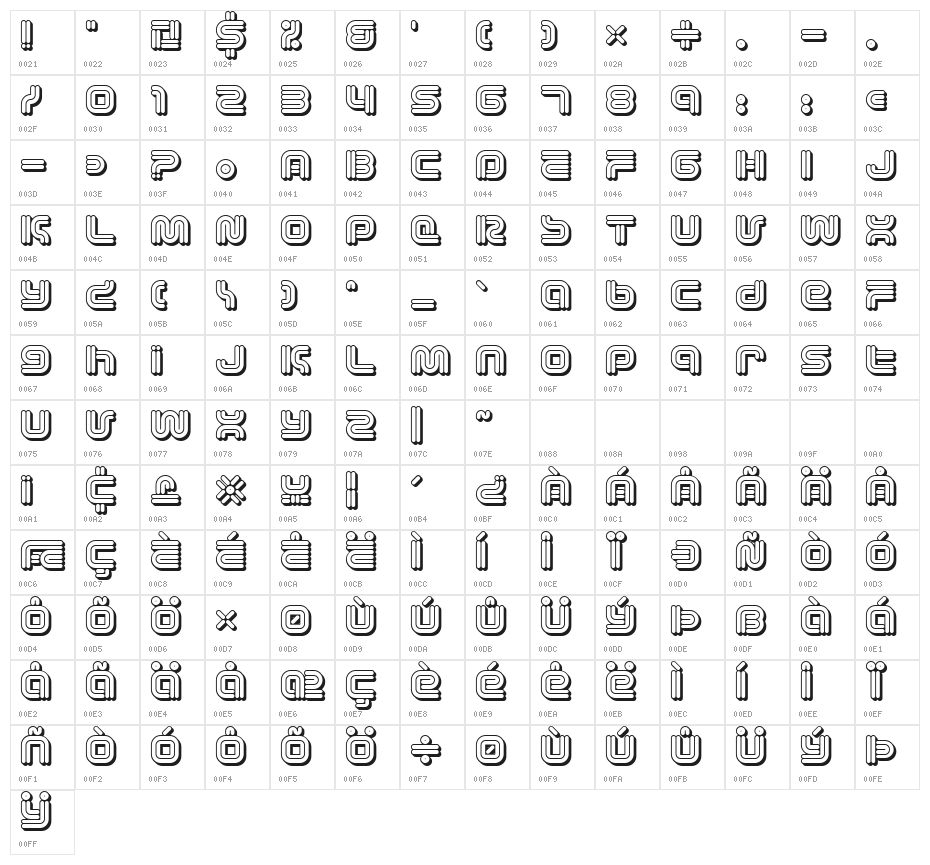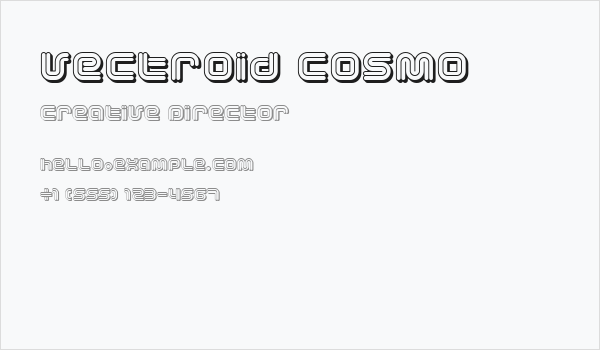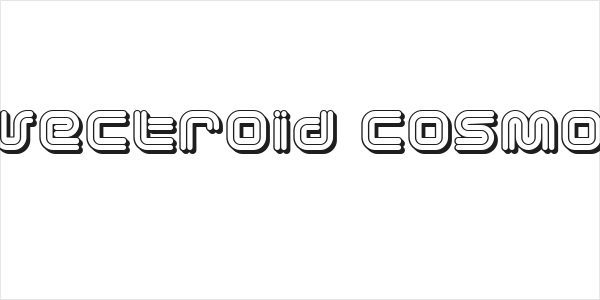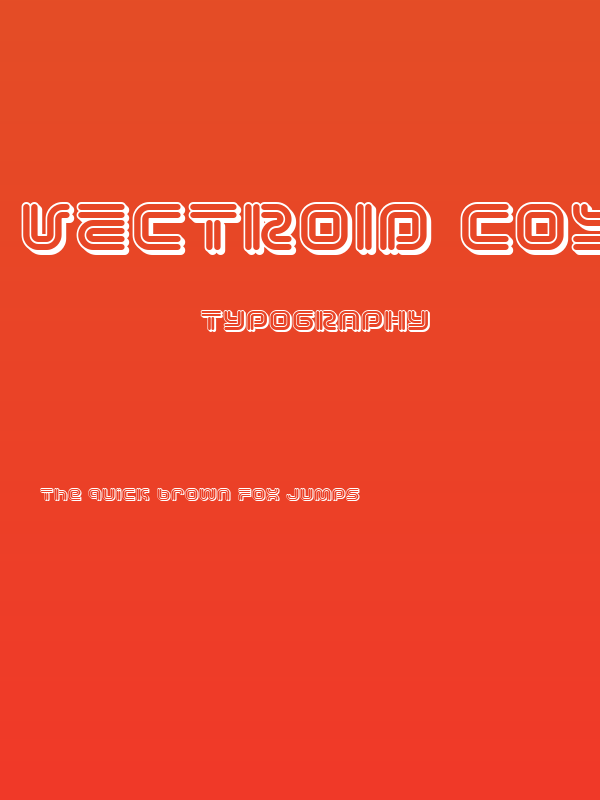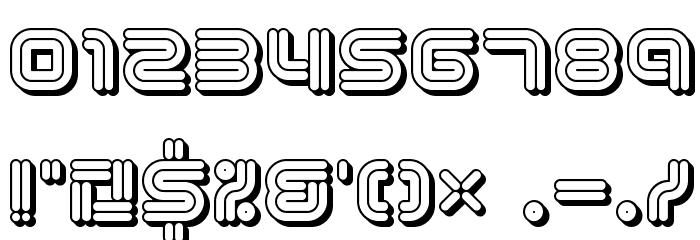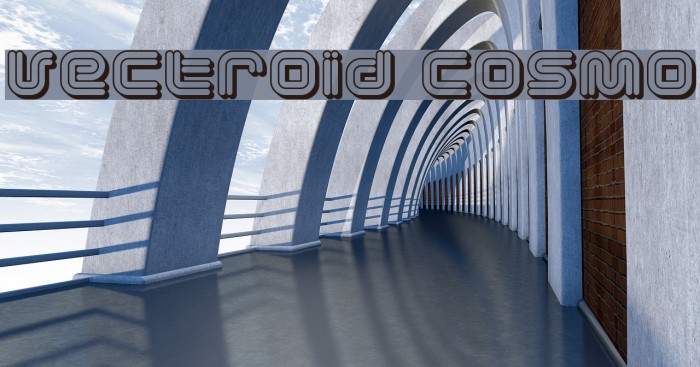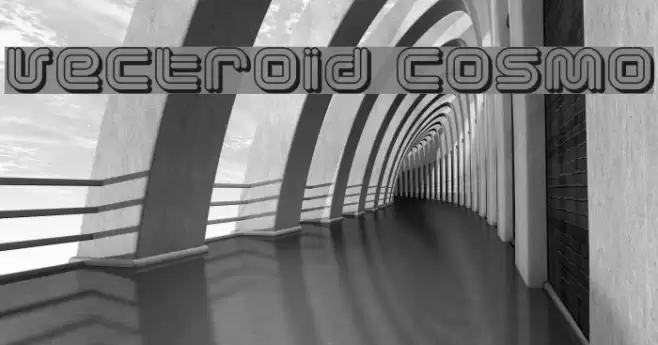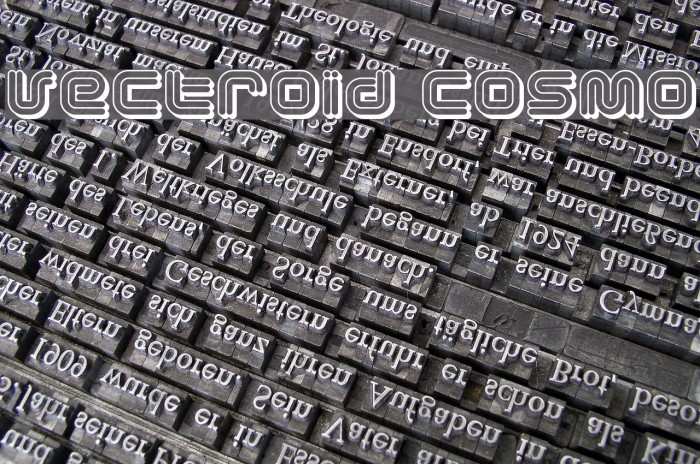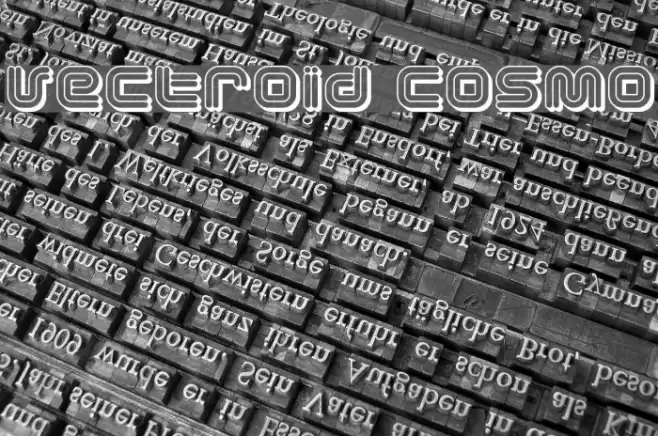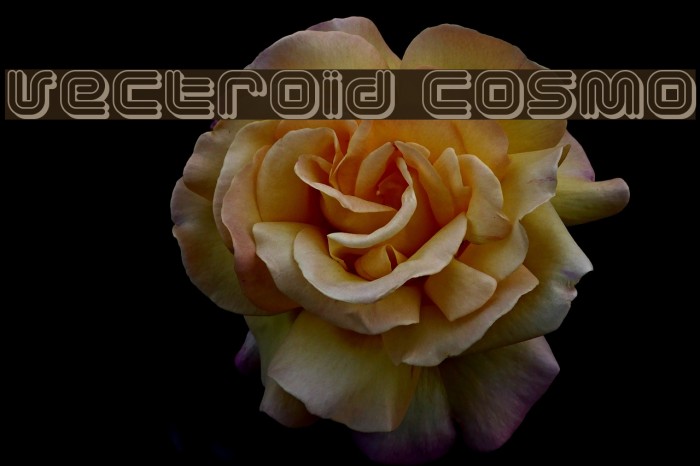
Vectroid Cosmo Font
Vectroid Cosmo Description
This font features a futuristic and geometric design with a distinct three-line pattern forming each character. The letters are bold and rounded, creating a sense of depth and dimension. The consistent use of parallel lines gives it a cohesive and modern appearance, making it stand out in any design. The numerals and special characters follow the same design principles, ensuring uniformity across all elements. This font is ideal for projects that require a bold and eye-catching typeface with a modern twist.
| Proposed Projects | Ideal for sci-fi themed posters, tech company logos, futuristic branding, and digital media. |